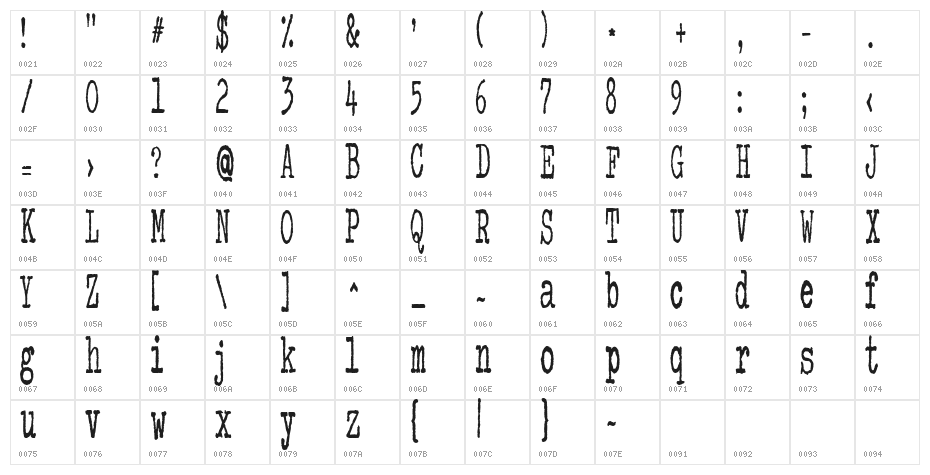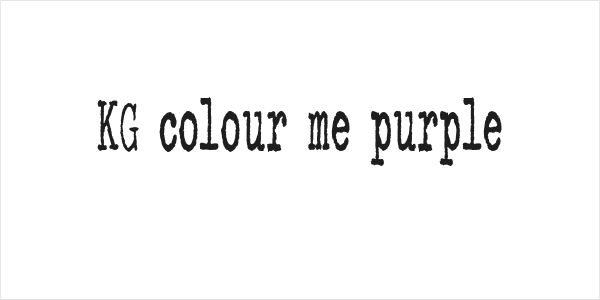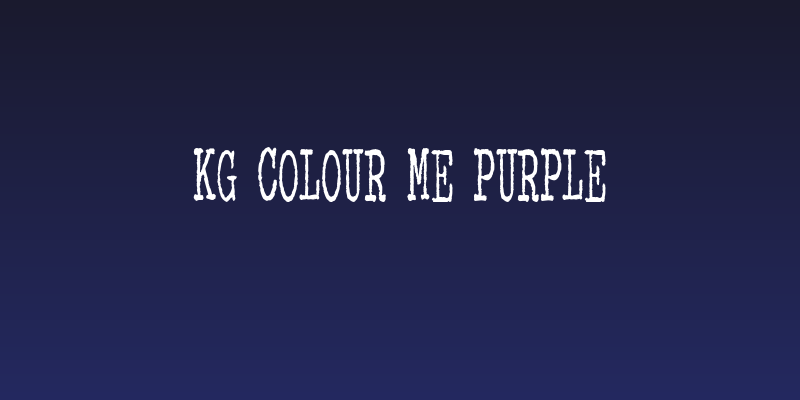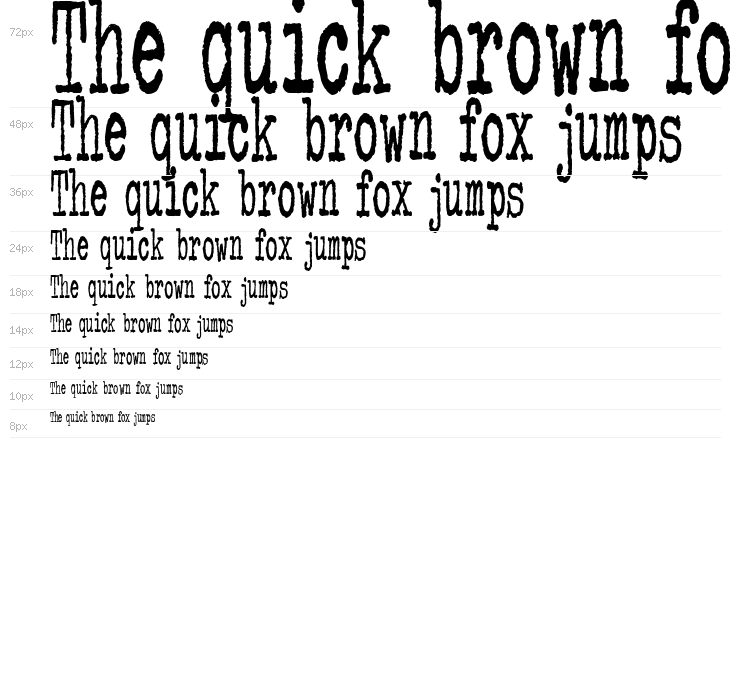
KG colour me purple Font
KG colour me purple Description
This font exhibits a distressed, textured appearance reminiscent of vintage typewriter styles. The characters have a rough, uneven edge, giving them a handcrafted feel. The uppercase and lowercase letters maintain a consistent height, while the numerals and special characters follow suit with the same rugged texture. This font's unique style is characterized by its bold, impactful presence, making it ideal for projects that require a touch of nostalgia or a rustic aesthetic. The irregularities in the letterforms add to its charm, making it stand out in any design.
| Proposed Projects | Ideal for vintage-themed posters, book covers, branding for artisanal products, and retro-inspired designs. |